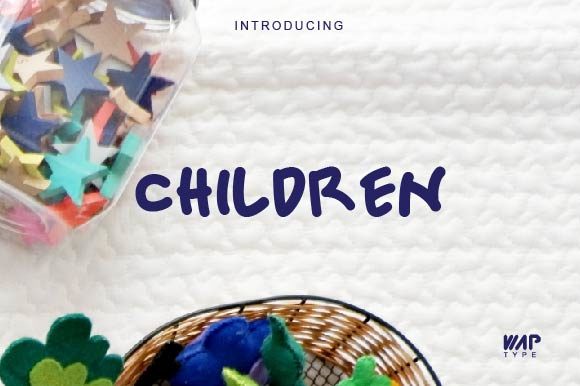
Kid Ul  Font
About Kid Ul  Font
Kid Ul embodies joy, quirkiness and authenticity. This marvelous font will transform any unique idea into a true standout. Get inspired by its childlike feel, and use it to brighten up any kids and school project!